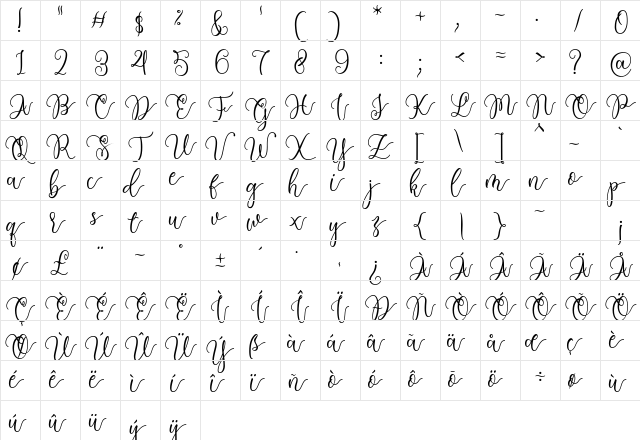
Having Fun Regular
| Foundry | 7NTypes |
| Designer | Rifki Syahrul Febrianoka; Situjuh Nazara; Setyo Purnomo |
Design Context for Having Fun Typeface
Having Fun has an approachable, lighthearted character — its loose, expressive forms are well-suited to children's content, casual branding, and fun-first design.
Well-suited to food and beverage brands with personality, educational materials, and fun-forward identities.
Font Pairing: Pairs well with a rounded or humanist sans for body copy, maintaining the friendly tone without relying on Having Fun to carry extended reading.
Pro Tip: Use Having Fun at larger display sizes where its expressive character can land. Pair with a clean, simple sans for body copy to maintain readability.